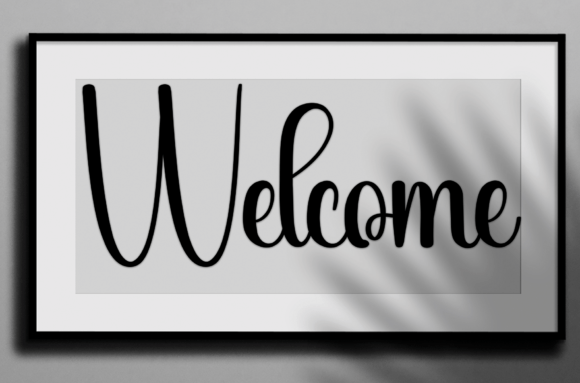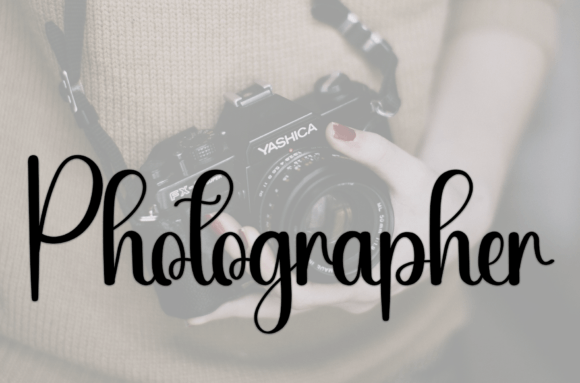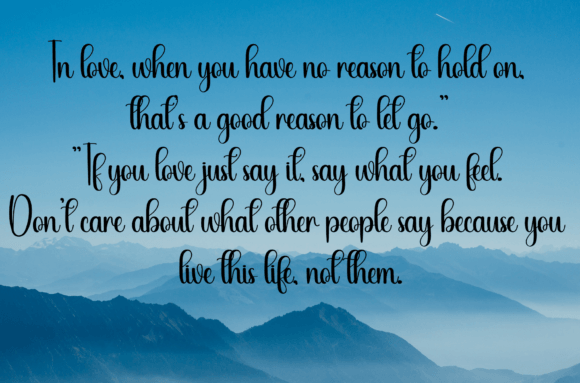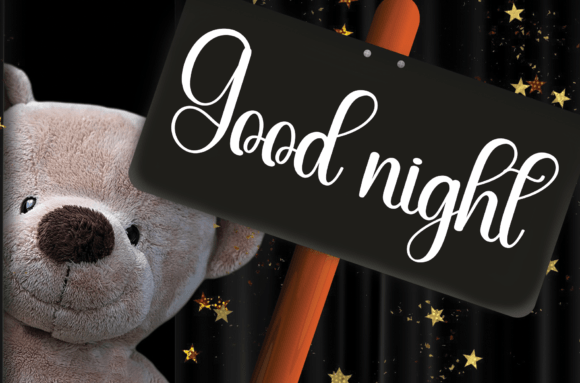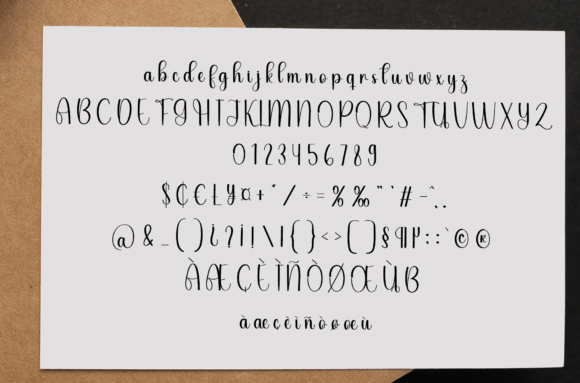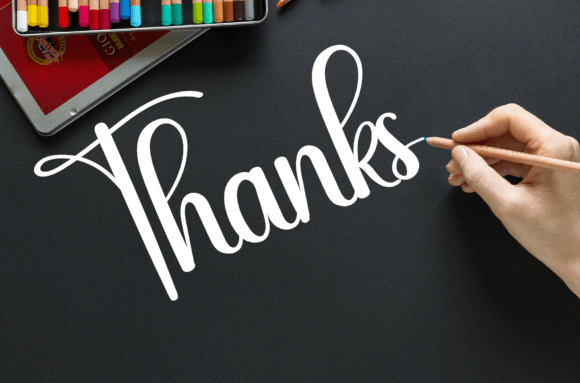
Introducing Gloria Style Font: The Sweet Handwritten Font for Your Design Needs
Are you a designer or crafter looking for a font that can add a touch of sweetness and playfulness to your designs? Look no further than Gloria Style Font! This beautiful handwritten font is perfect for creating wedding invitations, greeting cards, and other designs that require a friendly and cute touch.
What is Gloria Style Font?
Gloria Style Font is a sweet handwritten font that is designed to bring a sense of warmth and personality to your designs. Its friendly and approachable style makes it ideal for a wide range of projects, from wedding invitations and cards to social media graphics and more.
Key Features of Gloria Style Font
• Handwritten style: Gloria Style Font is a handwritten font that is designed to look like it was written with a pen or pencil. This gives it a personal and unique touch that is perfect for adding a human element to your designs.
• Sweet and playful: This font is characterized by its sweet and playful style, which makes it perfect for designs that require a touch of whimsy and fun.
• Friendly and approachable: Gloria Style Font is designed to be friendly and approachable, making it perfect for designs that require a warm and inviting tone.
• Highly versatile: This font is highly versatile and can be used for a wide range of projects, from wedding invitations and cards to social media graphics and more.
Uses for Gloria Style Font
Gloria Style Font is a highly versatile font that can be used for a wide range of projects, including:
• Wedding invitations: This font is perfect for creating beautiful and unique wedding invitations that reflect the personality and style of the happy couple.
• Greeting cards: Gloria Style Font is ideal for creating greeting cards for special occasions, such as birthdays, anniversaries, and holidays.
• Social media graphics: This font can be used to create social media graphics that are fun, playful, and engaging.
• DIY projects: Gloria Style Font is perfect for DIY projects, such as scrapbooking, journaling, and other craft projects.
Why Choose Gloria Style Font?
There are many reasons why you should choose Gloria Style Font for your design needs. Here are just a few:
• Unique and personal: This font is designed to add a personal and unique touch to your designs, making them stand out from the crowd.
• Easy to read: Gloria Style Font is highly legible and easy to read, making it perfect for designs that require a clear and concise message.
• High-quality: This font is designed to be high-quality and professional, making it perfect for commercial and personal projects.
Tips for Using Gloria Style Font
Here are a few tips for using Gloria Style Font in your designs:
• Use it with a simple background: Gloria Style Font looks best with a simple background that doesn’t distract from the text.
• Experiment with colors: This font looks great in a variety of colors, so don’t be afraid to experiment and find the perfect color for your design.
• Pair it with other fonts: Gloria Style Font can be paired with other fonts to create a unique and interesting design.
Gloria Style Font is a beautiful and versatile font that is perfect for designers and crafters who want to add a touch of sweetness and playfulness to their designs. With its friendly and approachable style, this font is ideal for a wide range of projects, from wedding invitations and cards to social media graphics and more. So why not give it a try and see how it can enhance your designs?